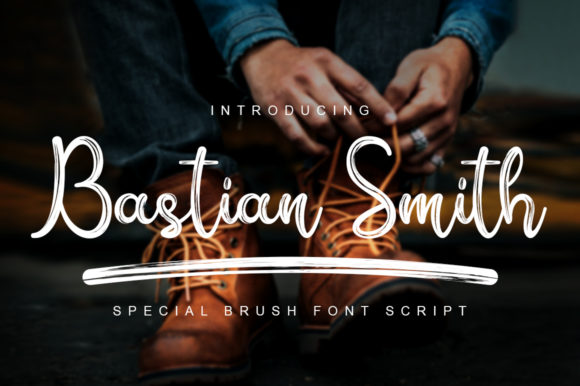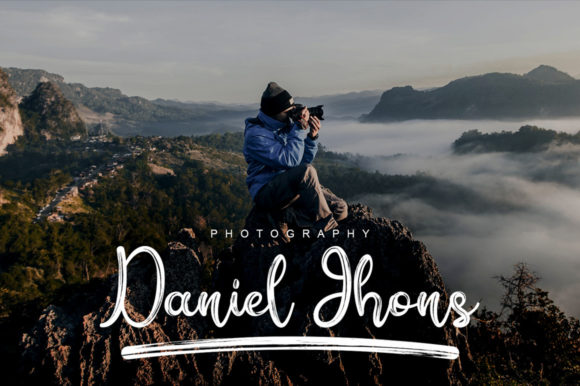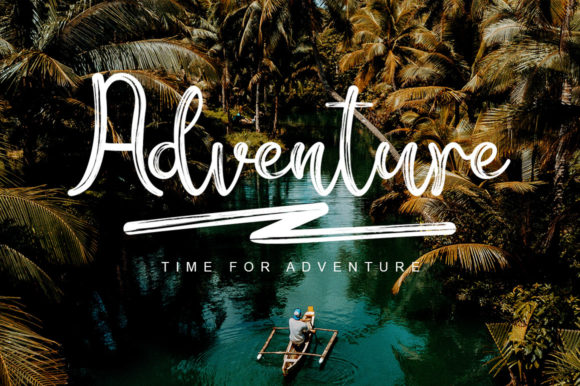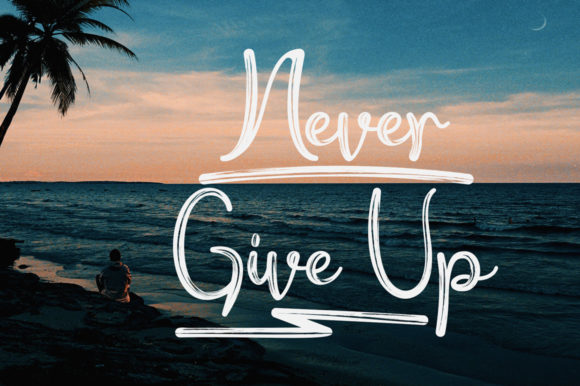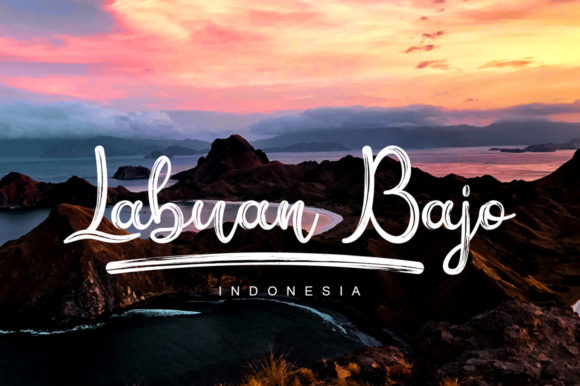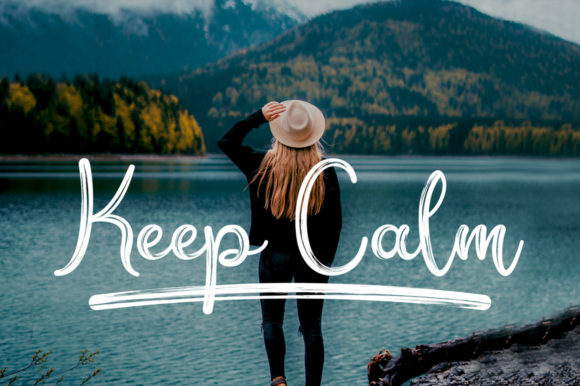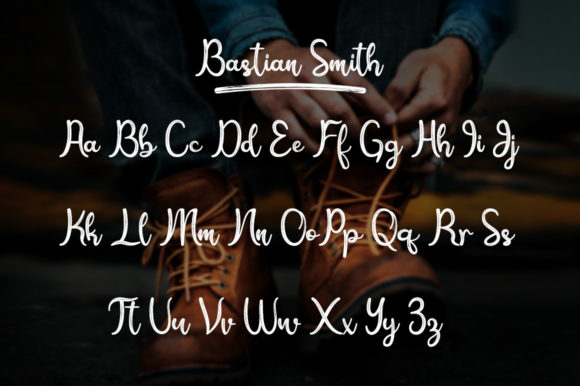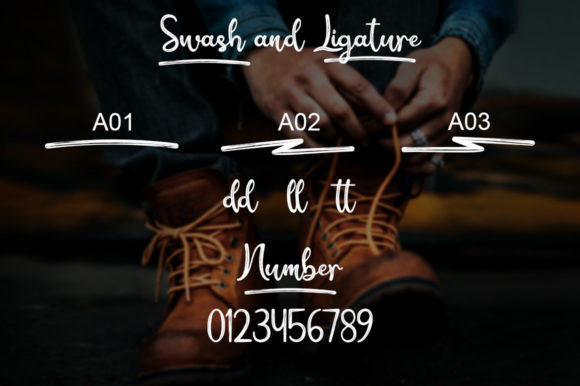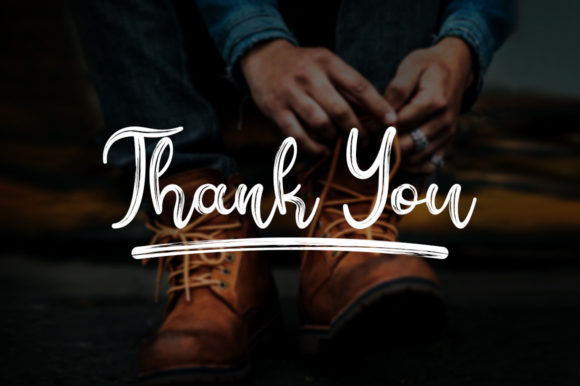
Bastian Smith Font
About Bastian Smith Font
Bastian Smith is a brushed script font that has attractive and very beautiful characters. This font can be used for your favorite designs and easily take them to the next level.